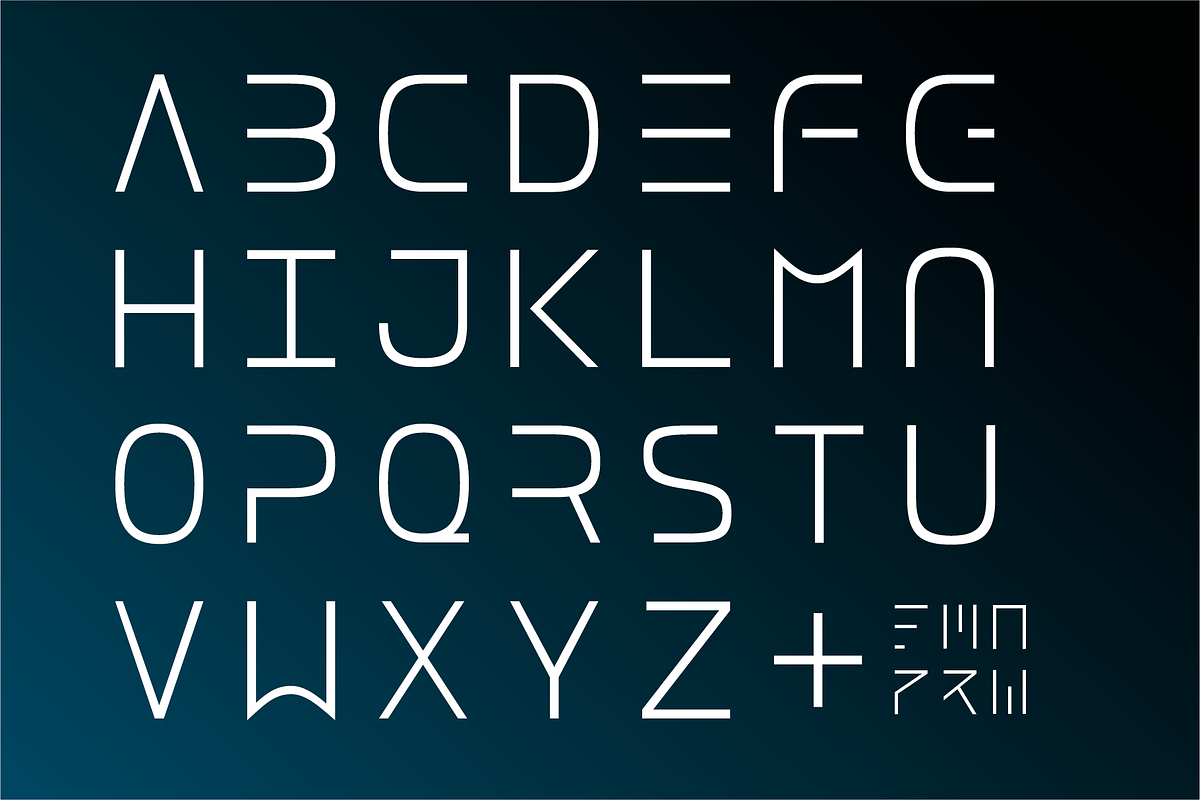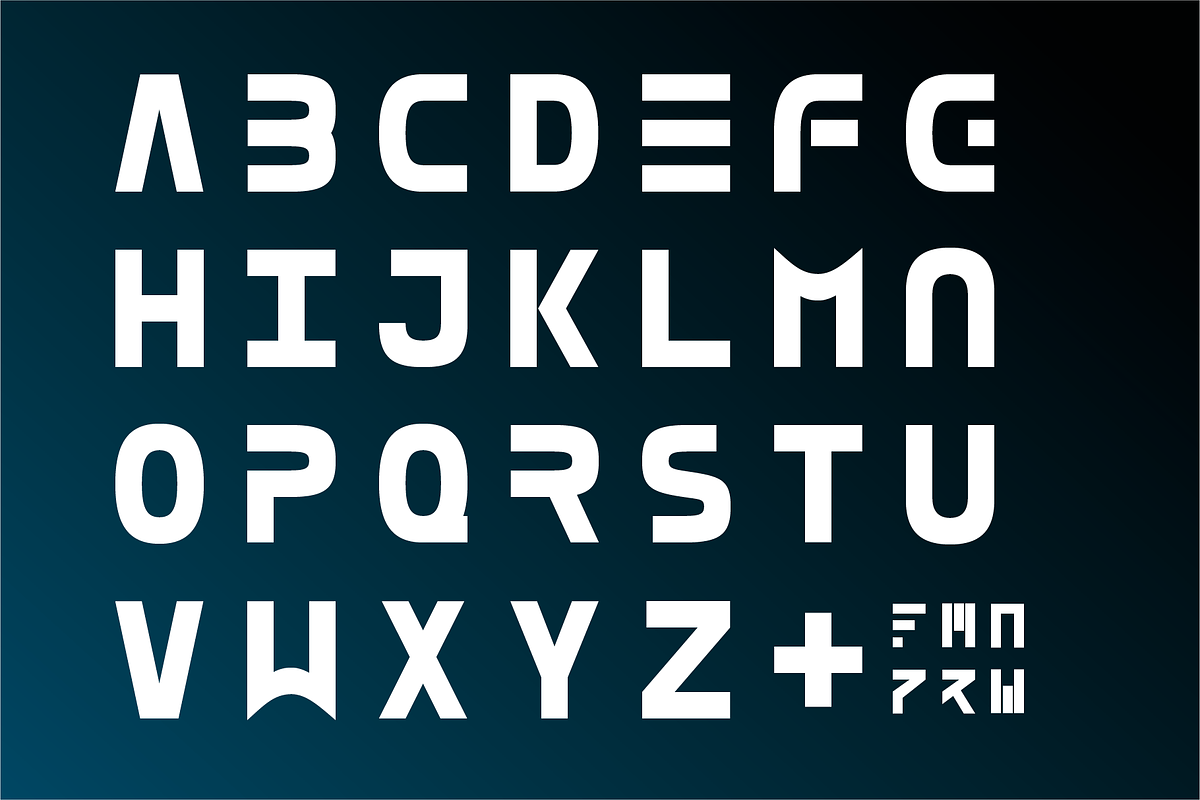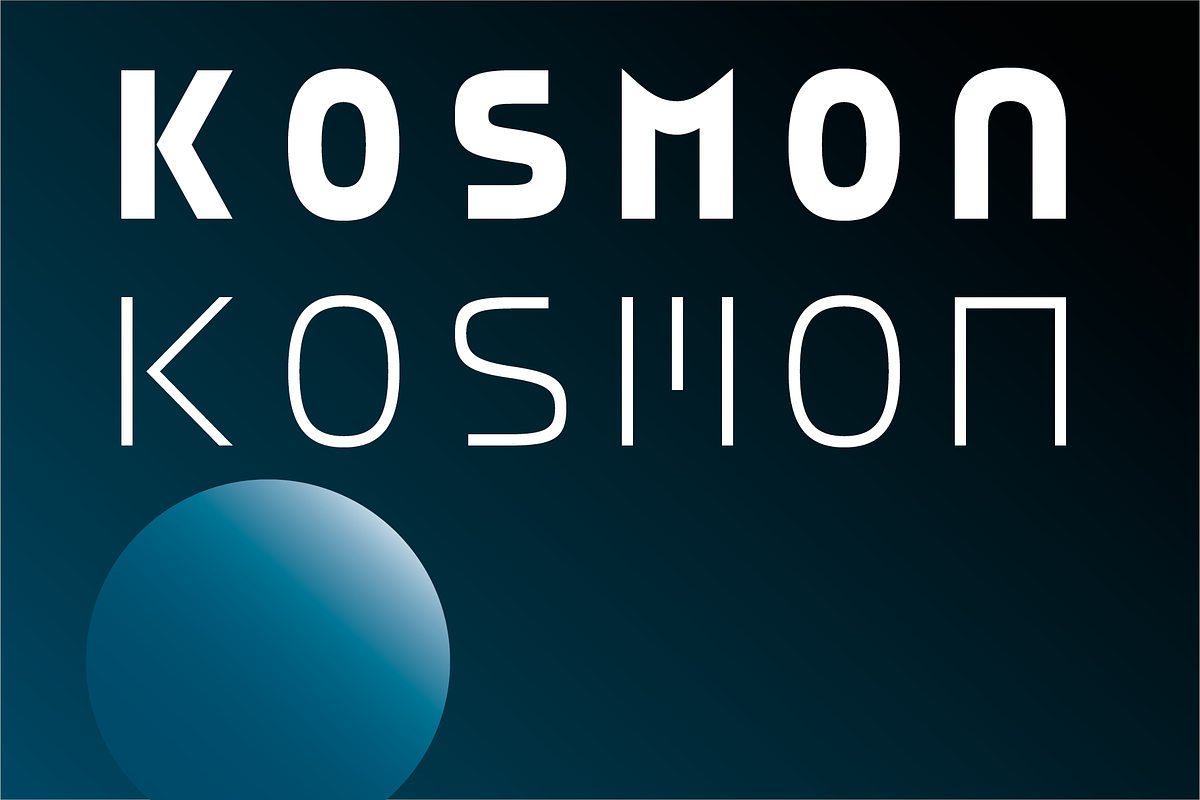
Kosmon
This a pure headline font. It's set in monospace and has 6 alternate letters accessable through styleset1. This display font has a reduced character set because it was made for titles. Enjoy your futuristic designs.